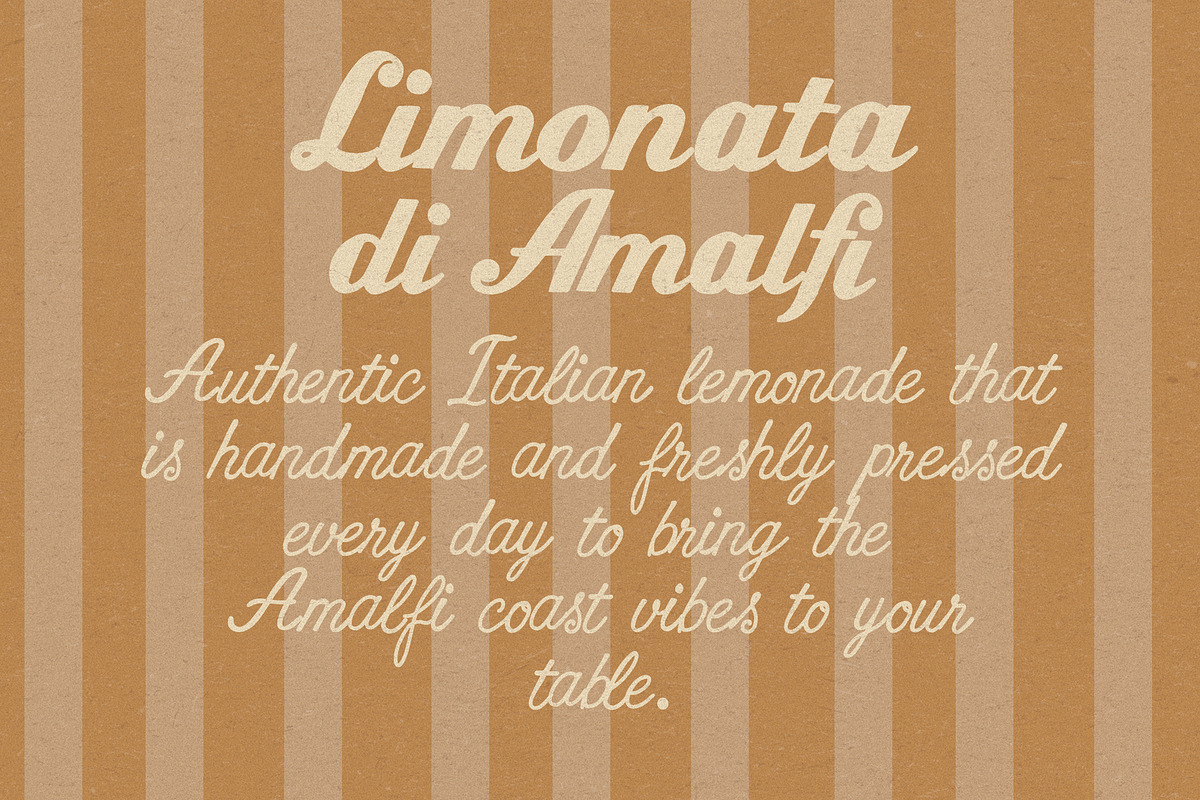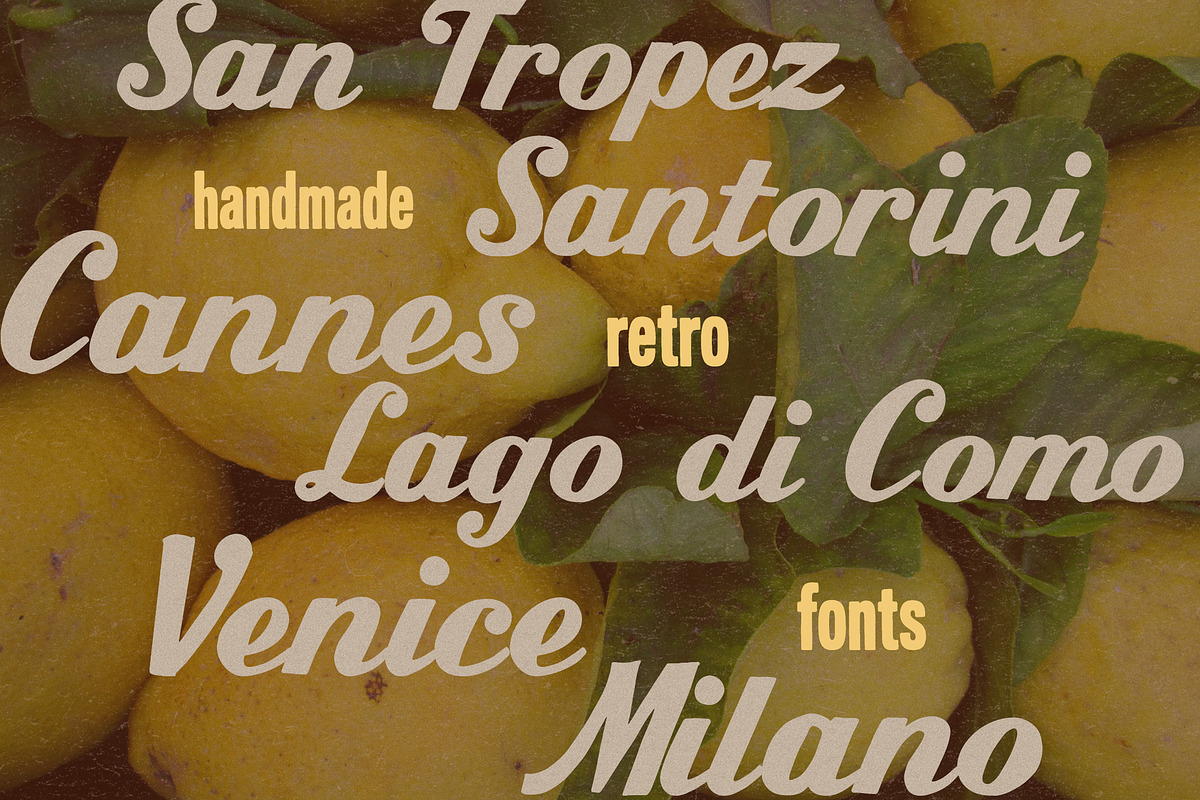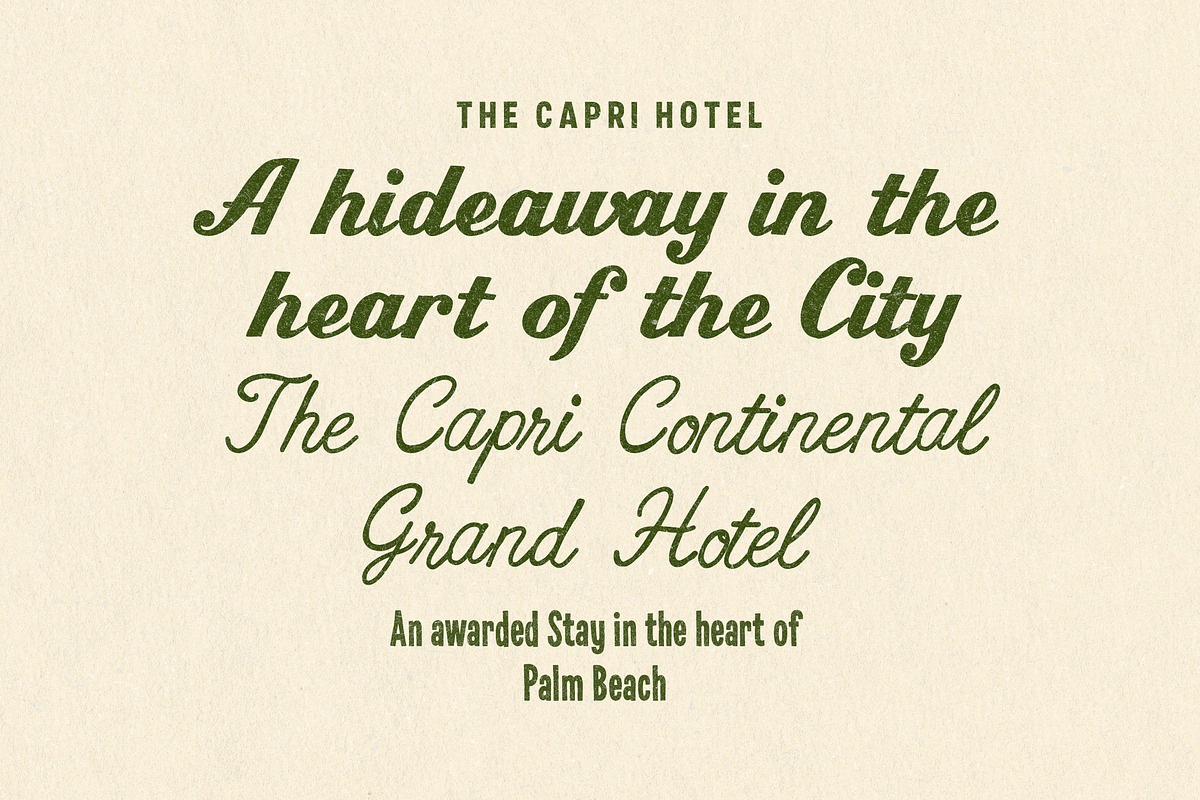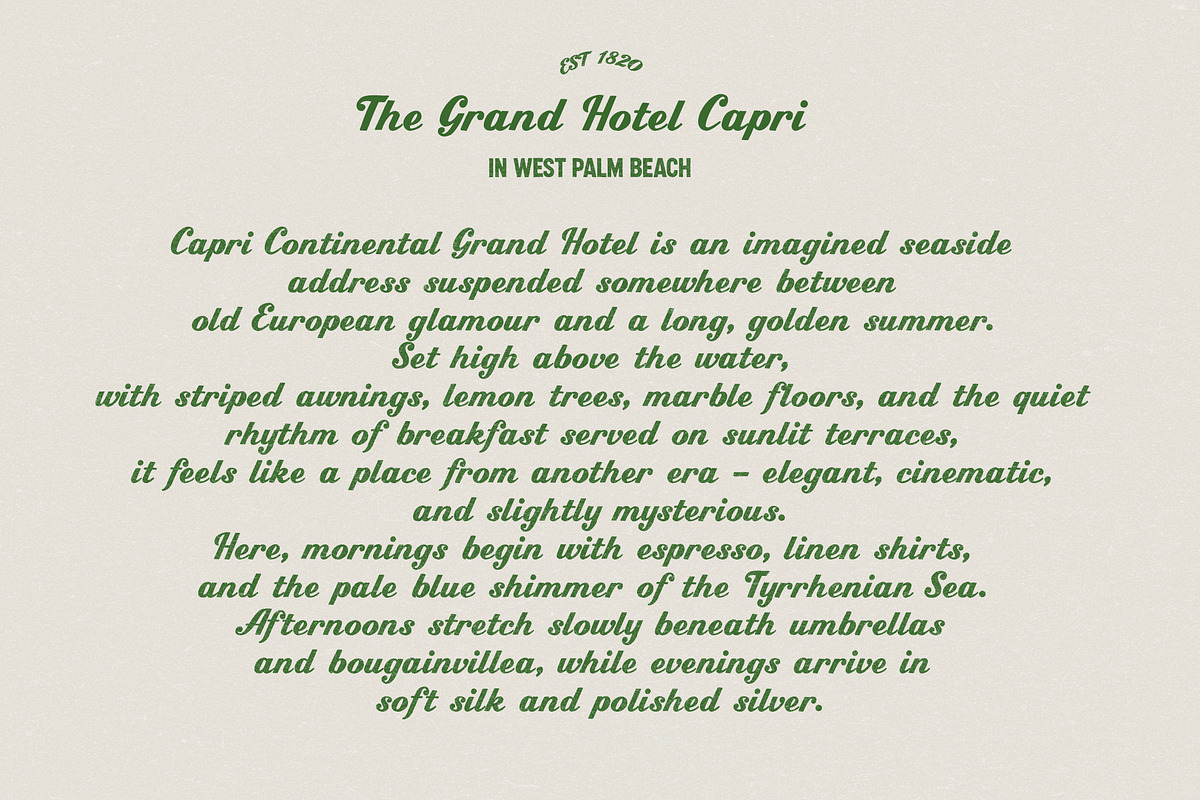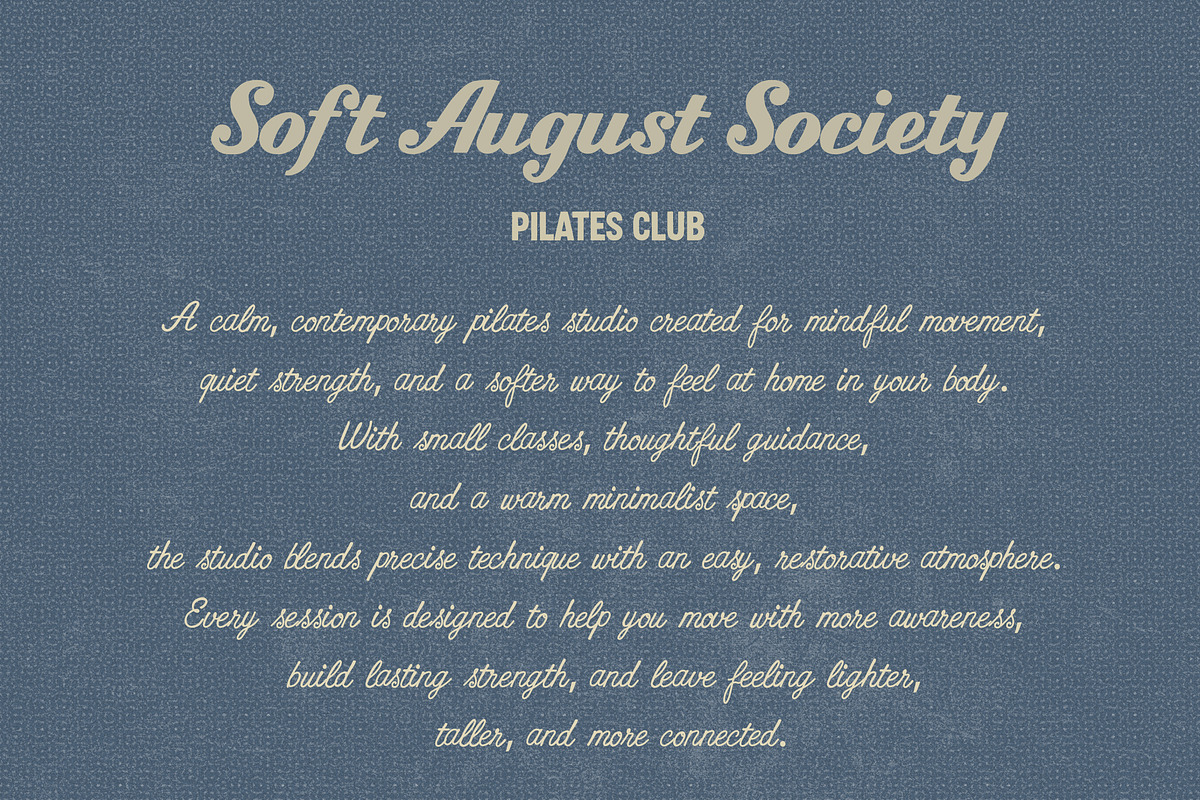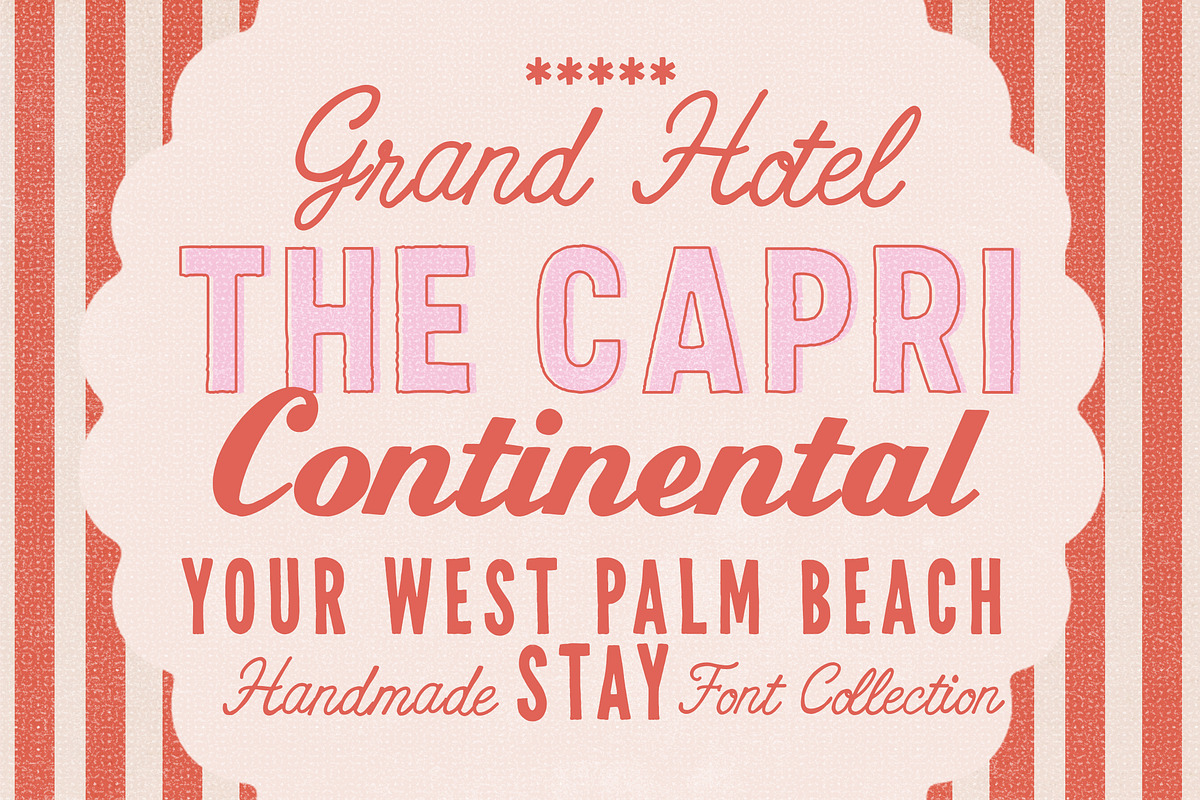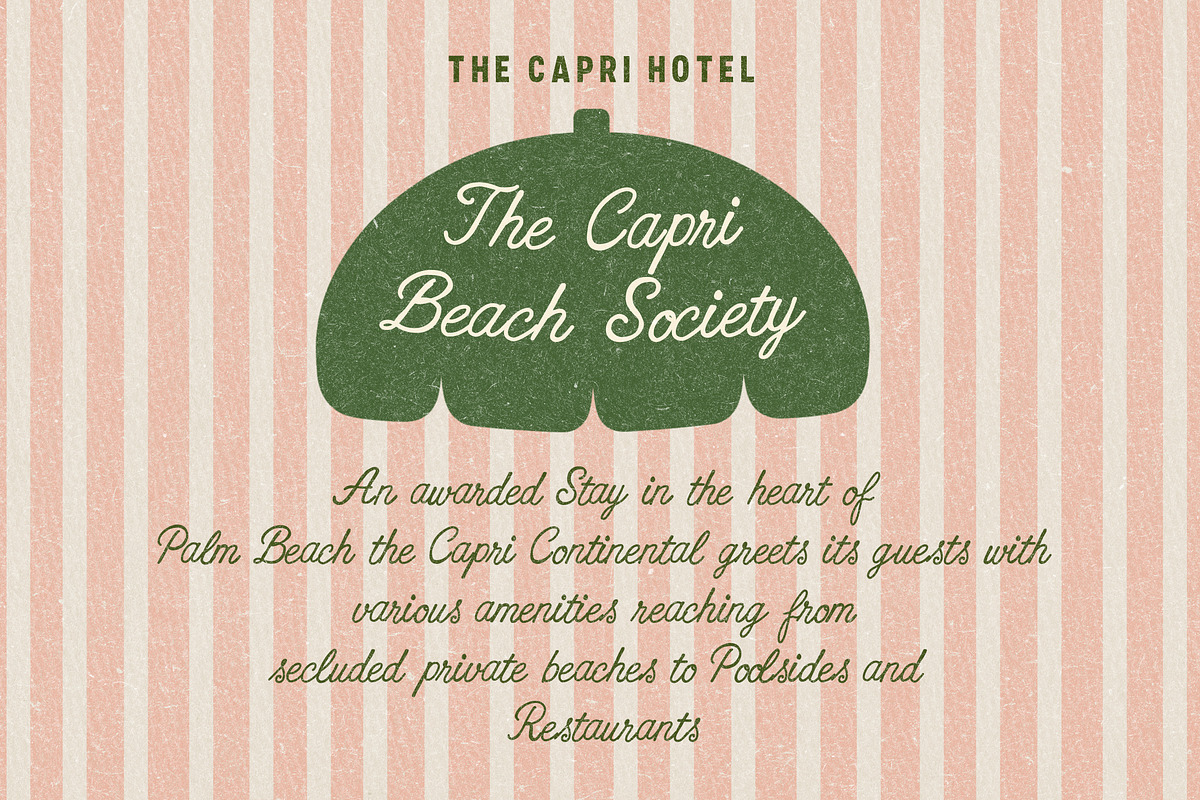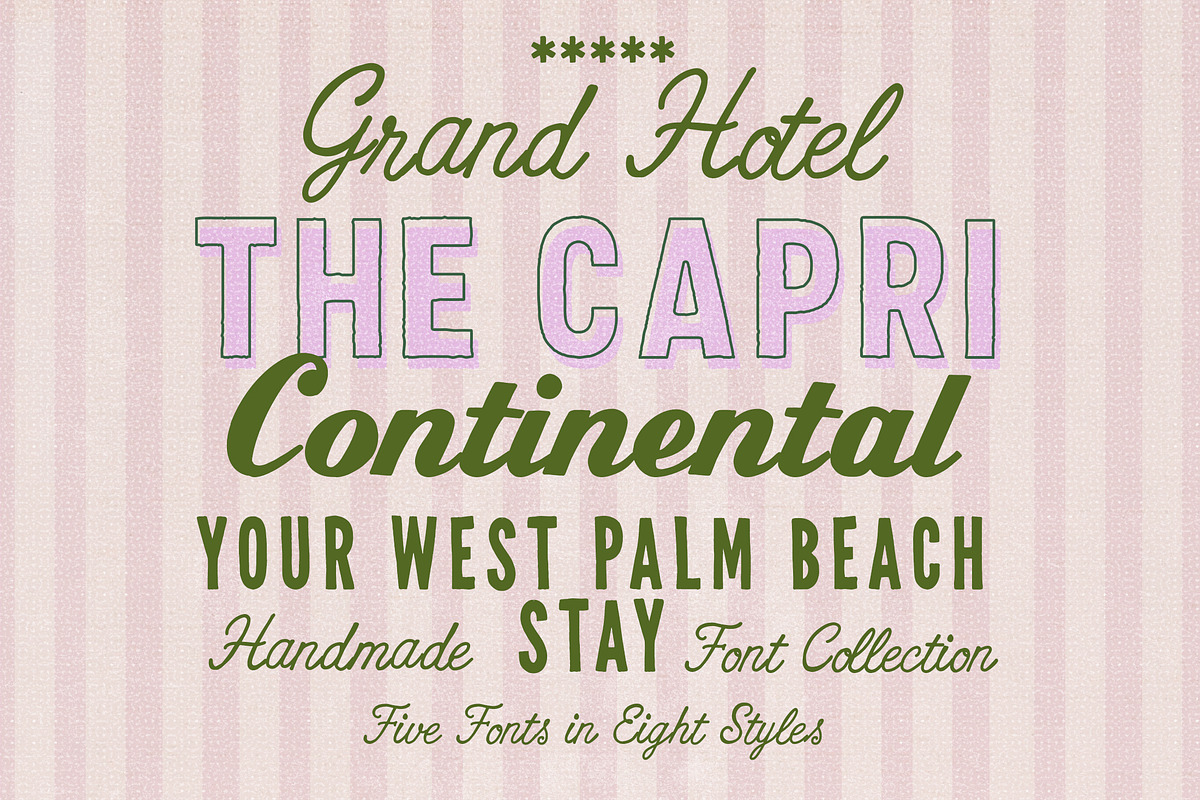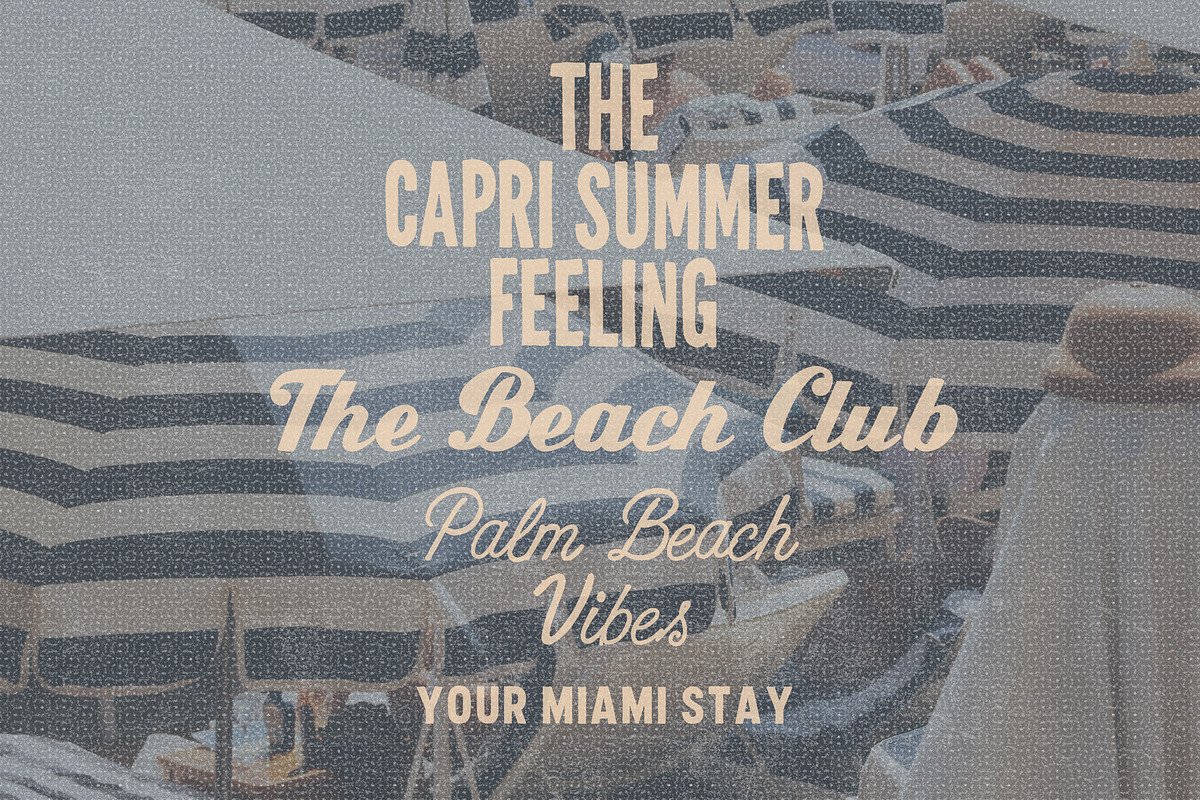
Handwritten Retro Sign Painter Fonts
Welcome a nostalgic retro font set inspired by Italian summer days, handwritten café signs, and sun-faded holiday postcards. This Italo-inspired collection includes a bold handwritten script, a fine delicate script, and a playful textured sans in two versions - perfect for vintage branding, logos, packaging, menus, social media graphics, travel designs, and Euro summer projects with a warm, handmade feel.